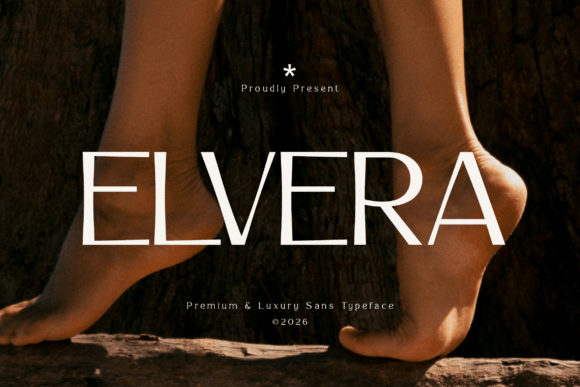
The Birth of a Luxury Typographic Icon: Elvera Font
As a designer, have you ever found yourself struggling to convey the essence of a luxury brand through typography? The perfect balance of elegance, sophistication, and minimalism can be elusive, but that’s where Elvera Font comes in – a premium luxury sans serif typeface that embodies the very essence of high-end design.
Designed to deliver a timeless visual presence that feels both contemporary and exclusive, Elvera Font is the perfect solution for designers seeking a strong yet understated typographic identity. Its sleek letterforms and high fashion aesthetic make it an exceptional choice for luxury logo type, fashion & beauty branding, and premium packaging design, among other applications.
With Elvera Font, designers can tap into a world of clarity, confidence, and prestige, elevating their brand identities to new heights. Whether you’re working on a high-end fashion campaign, a luxury logo, or a premium brand identity system, this versatile typeface is sure to deliver results that exceed your expectations.
Elvera Font Key Features
- Font Family: Elvera, a modern sans-serif font designed for clear and concise typography.
- Font Size: 1,042 glyphs, offering a wide range of characters and symbols for diverse language support.
- Resolution: Optimized for high-resolution displays, making it suitable for digital applications and print materials.
- Unique Characteristics: Elvera’s distinctive features include its geometric shapes, clean lines, and open apertures, creating a friendly and approachable feel.
Elvera Font Review
Overall, I’d say Elvera is a beautiful, elegant font that can elevate any design project. ✨ The flowing lines and subtle flair on the characters make it perfect for creating a sense of sophistication and refinement.
Here are some things that I think work well:
- Elvera is incredibly versatile, making it suitable for a wide range of applications, from logos to body text.
- The font has a nice balance of modernity and classic feel, making it easy to pair with different styles.
- Elvera is highly legible, even at smaller sizes, making it perfect for digital designs.
However, I do have some concerns:
- Elvera can feel a bit too ornate for some designs, potentially overpowering the content.
- The font may not be the best choice for bold, attention-grabbing headlines.
- Some characters, such as the lowercase ‘a’, can be a bit tricky to read at certain angles.
Overall, I think Elvera is a great choice for designers who want to add a touch of elegance to their projects. With its many strengths and a few minor limitations, I’d definitely recommend giving it a try.
Tip: Use Elvera Font for headings and titles to add a touch of elegance to your designs.
Tip: Use Elvera Font for typography-heavy designs, such as logos or branding materials.
Tip: Use Elvera Font for presentations and reports to add a professional touch.
Elvera Font is suitable for:
- Branding materials (logos, business cards, letterheads)
- Presentation materials (slides, reports)
- Editorial content (books, magazines, newspapers)